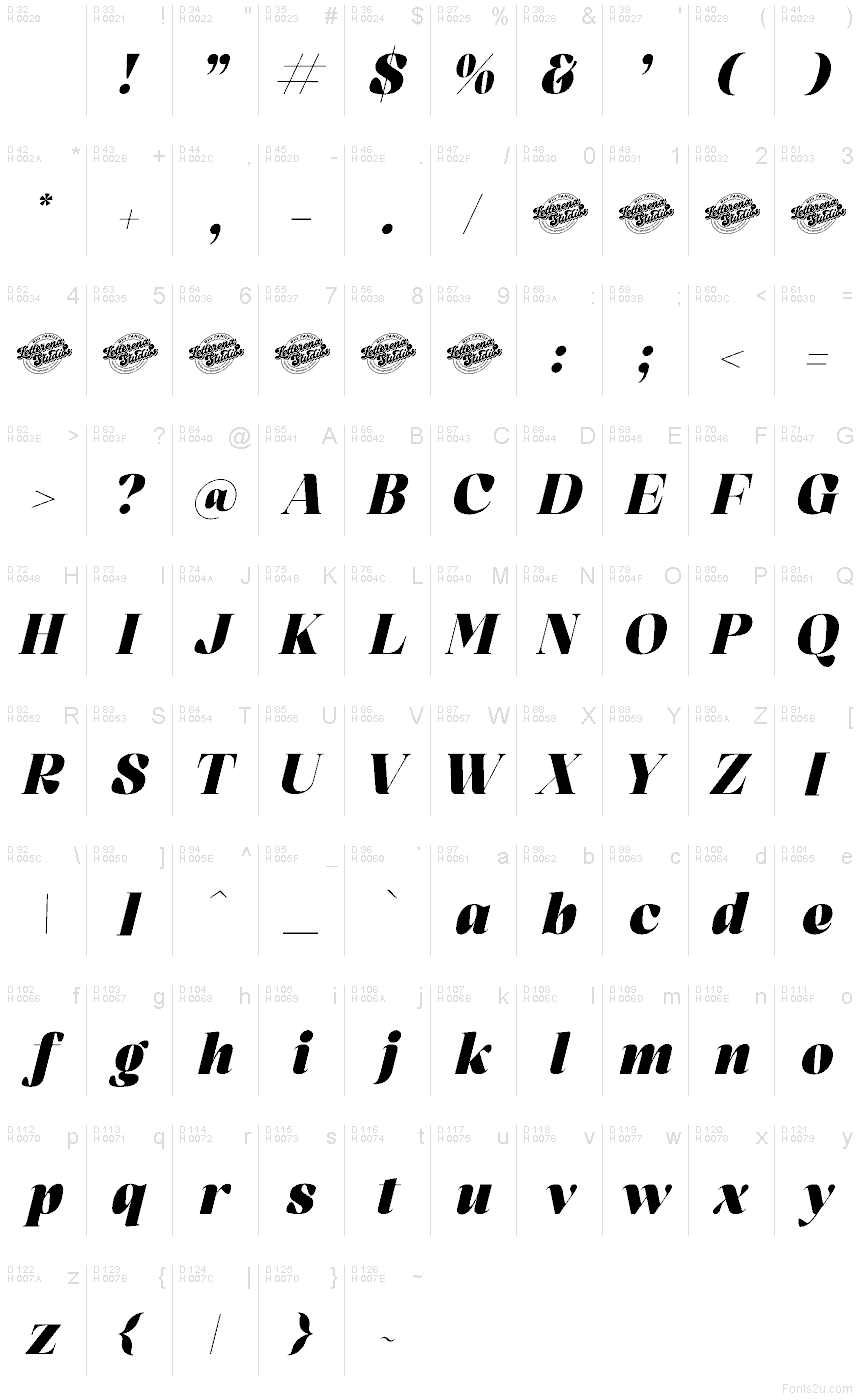
Kindora Bufferly DEMO VERSION Italic
Kindora Bufferly Italic font by Letterena Studios is a free italic serif typeface. Part of the Kindora Bufferly family, it leans into a lush, inky slant with thick, sculpted strokes and soft wedge-like serifs that feel both elegant and assertive. The rhythm is tight and forward-moving, giving headlines a confident sweep while keeping letterforms readable at medium sizes.
Using Kindora Bufferly Italic, you get a bold, fashion-leaning voice that shines on boutique logos, packaging, magazine titles, event invitations, restaurant menus, and social banners. Its smooth curves and sturdy weight deliver presence without fuss. For balance, pair this free font with a light geometric sans for body copy, or space it generously to let the italic texture breathe.